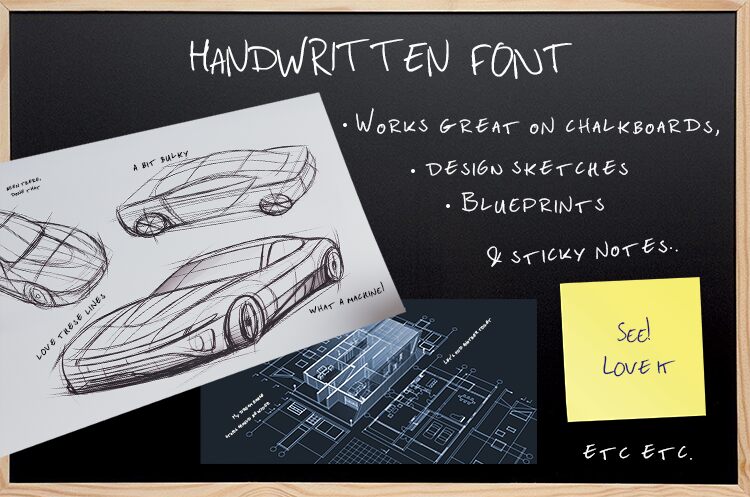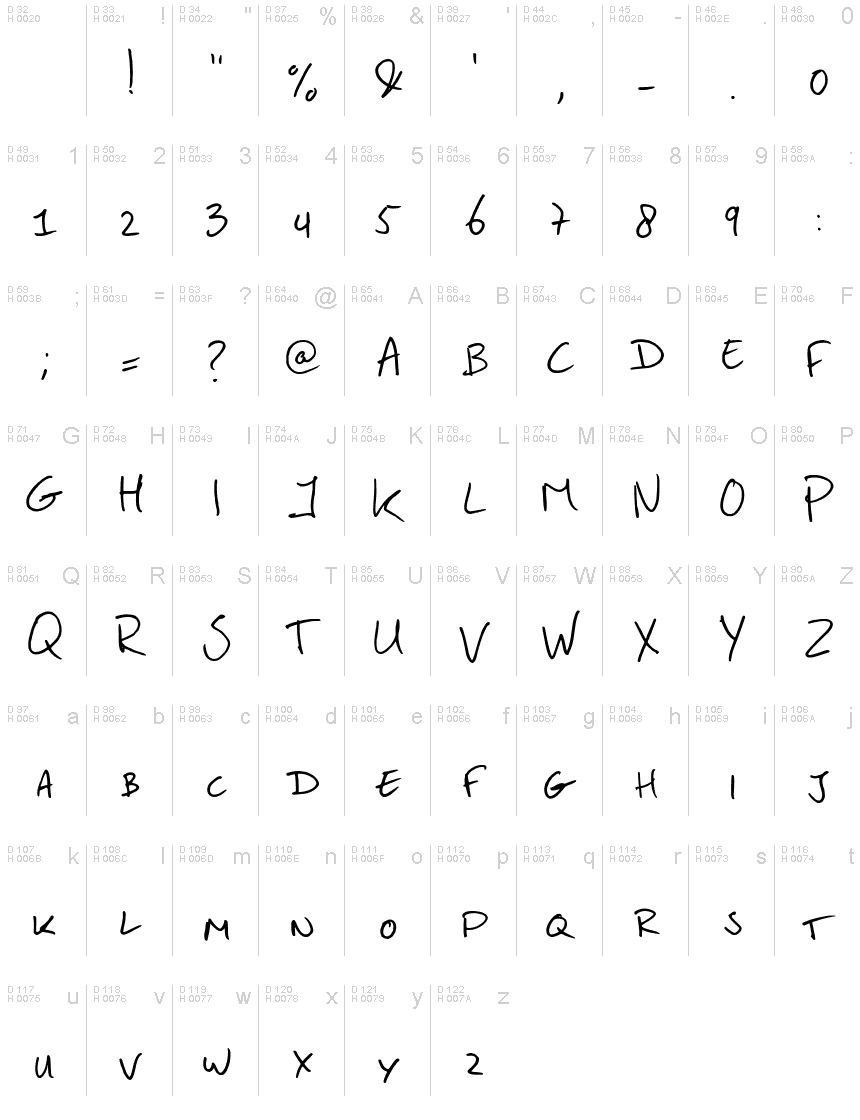
Handwriting Studiodehoo Regular
Personal handwriting. Made for annotations on sketches, moodboards and stuff. Single weight font with a variant for each character.